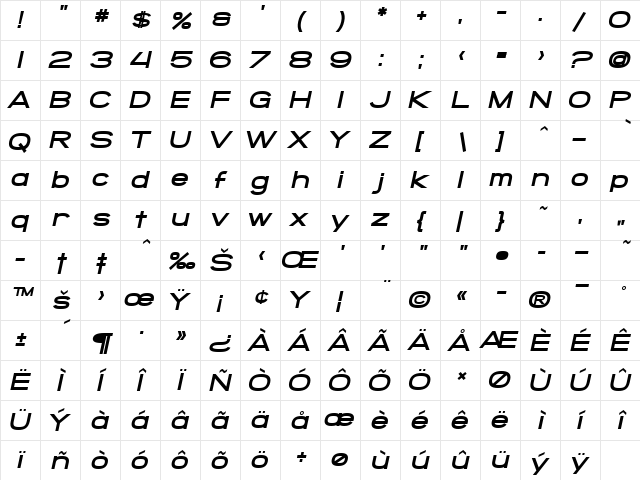
SF Grandezza Heavy Oblique
Design Context for SF Grandezza Typeface
SF Grandezza takes a measured approach to typography — its balanced proportions and neutral character make it a reliable workhorse for both digital and print work. The slanted form adds forward momentum and visual energy.